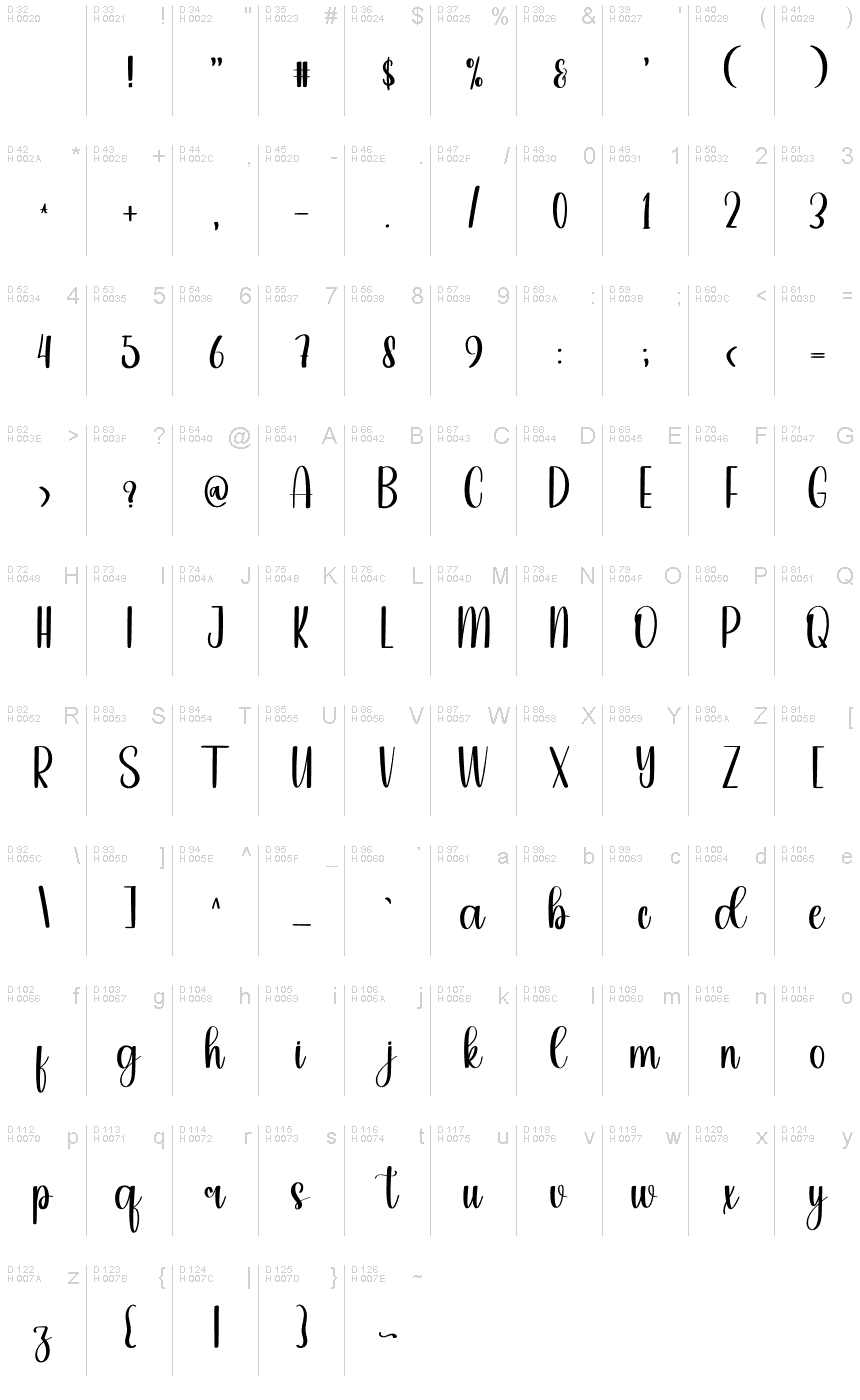
The Christmas
The Christmas, a distinctive creation by PiPi Creative, encapsulates the warmth and joy of holiday handwriting in a condensed font form. Its flowing, cursive strokes evoke the charm of personal correspondence, while its slender profile allows for elegant space-saving design. This handwritten style font boasts an aesthetic that is both inviting and celebratory.
With its graceful curves and casual elegance, The Christmas lends itself to a wide array of creative endeavors. It's particularly well-suited for festive invitations, seasonal greetings cards, or any project that requires a touch of personalized flair without sacrificing readability. The stylish yet unassuming appearance ensures versatility across both digital landscapes and printed materials.
Whether you're crafting a cozy winter newsletter or branding a year-end event, The Christmas font will impart your message with an authentic handcrafted feel that resonates with the spirit of the season.